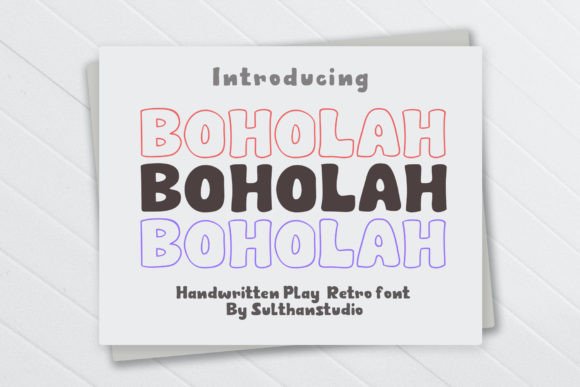
The Bohola Font: A Quirky, Handwritten Gem for Creative Projects
I’ll never forget the time I was working on a project for a client who wanted a font that was “quirky” and “handwritten.” I spent hours scouring the internet for the perfect match, but nothing seemed quite right. That was until I stumbled upon the Bohola font. As soon as I saw it, I knew I had found what I was looking for. The Bohola font is an old-style font written by teenagers, as a form of expression for those who are bored or looking for cool and creative ideas by drawing something accompanied by writing. In this article, we’ll dive into the world of Bohola and explore its unique features, how to use it, and some similar fonts you might love.
A Personal Review of Bohola
So, what do I love about the Bohola font? Here are a few things that make it stand out:
• ✨ Unique, handwritten feel that’s perfect for creative projects
• ✅ Easy to read, even at smaller sizes
• 💡 Supports OpenType features, glyphs, and stylistic alternates
Of course, no font is perfect, and Bohola has a few quirks to be aware of:
• 🤔 Limited kerning options, which can make it tricky to use with certain fonts
• ⚠️ Not ideal for body text, as it can be a bit too ornate
The Backstory of Bohola
The Bohola font was created as a form of self-expression by teenagers who were looking for a way to add some personality to their writing. The font is characterized by its quirky, handwritten feel and is perfect for creative projects. The designer behind Bohola was inspired by the graffiti and street art that they saw in their community, and wanted to create a font that captured the same spirit.
Q: What is the Bohola font? A: The Bohola font is an old-style font written by teenagers, characterized by its quirky, handwritten feel.
Q: Is Bohola suitable for body text? A: No, Bohola is not ideal for body text, as it can be a bit too ornate. It’s best used for titles, headings, or quotes.